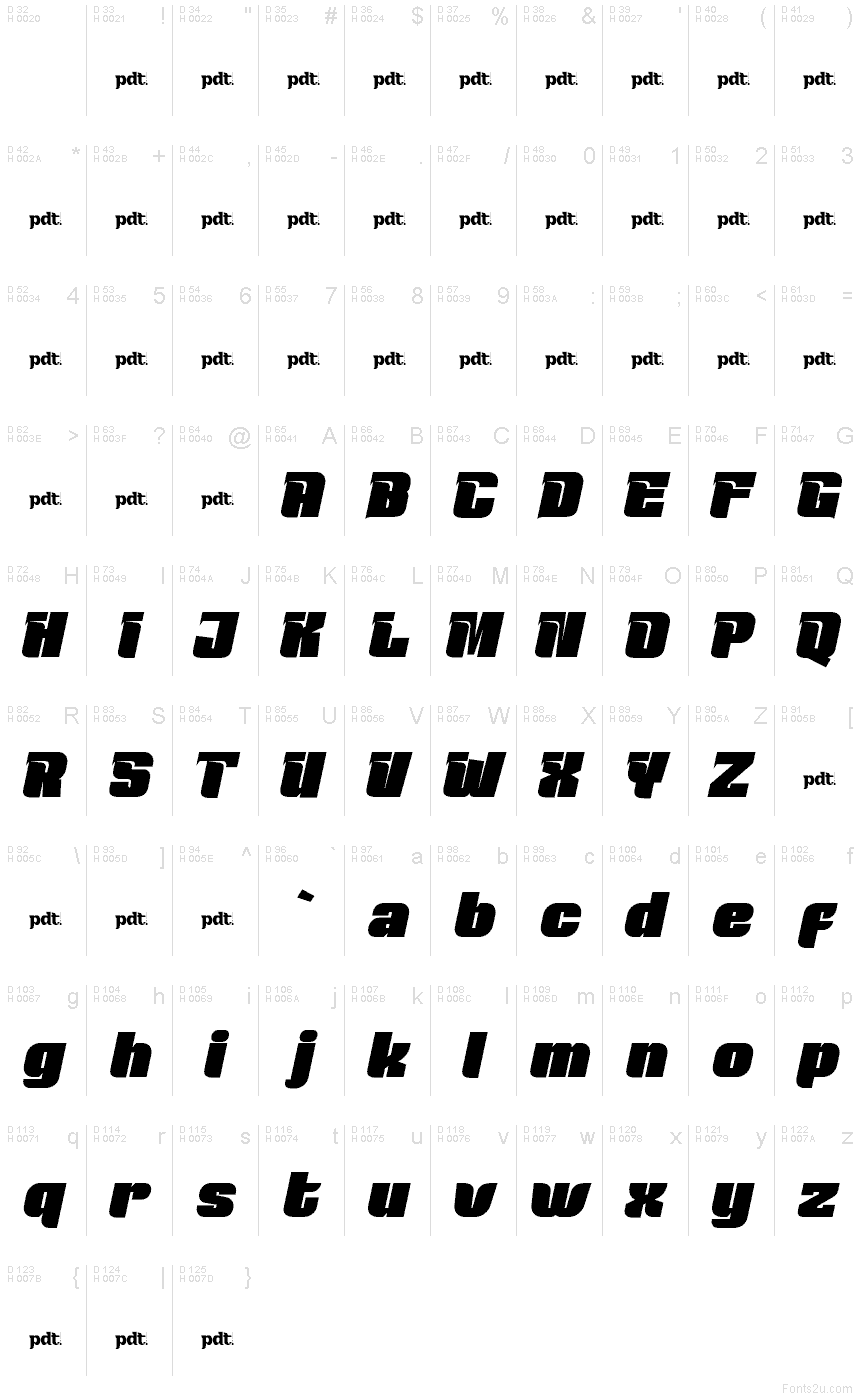
EKUHOT Slant
Ekuhot Slant font by productype.com is a free bold slanted techno display font. Built within the Ekuhot family, it leans hard into motion—thick, forward-tilting strokes with shaved terminals and razor wedges that look air-cut and aerodynamic. The rhythm is tight and punchy, with compact counters that keep the wordshape dense while those angled cuts add a streak-of-light energy.
Using Ekuhot Slant, headlines feel fast before you even read them. This free font shines on racing posters, esports branding, sci‑fi titles, synthwave album covers, tech product launches, and bold event signage. It works beautifully at oversized scales; pair it with a clean, neutral grotesk for small copy, or add a little letterspacing to let the sleek forms breathe.